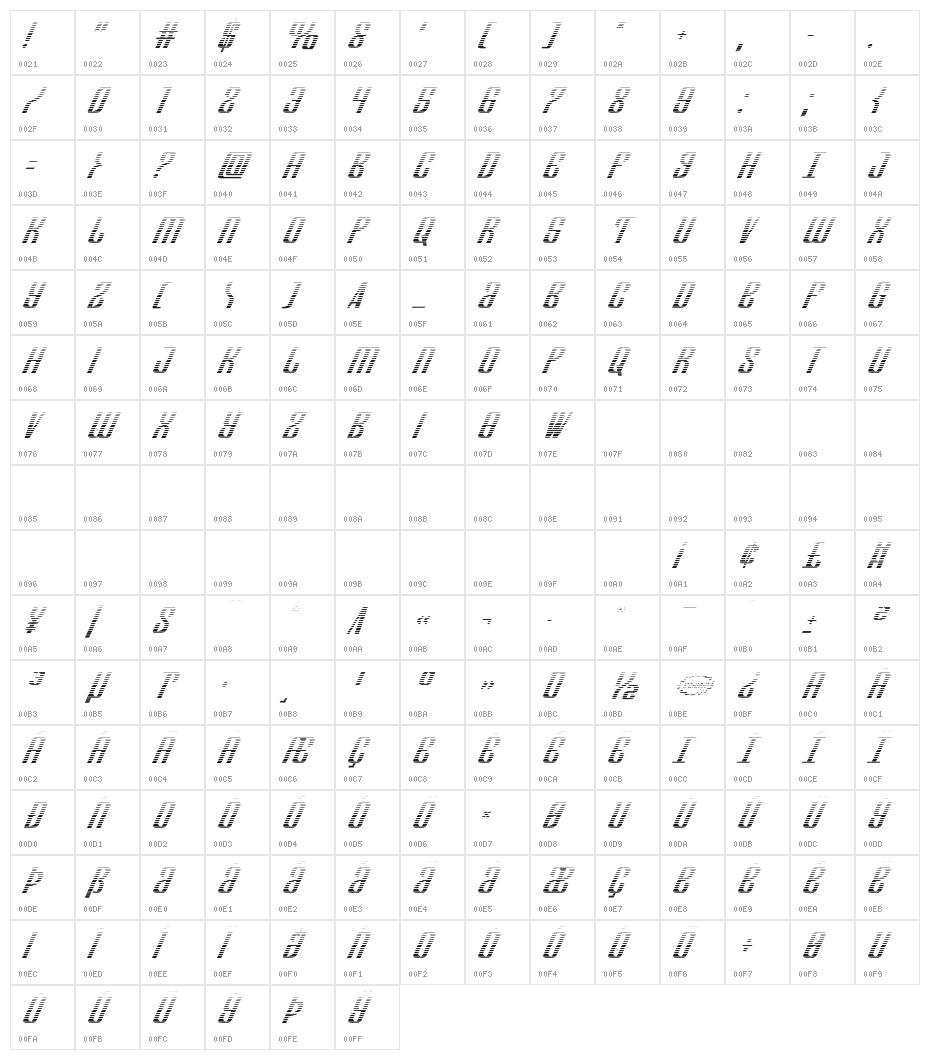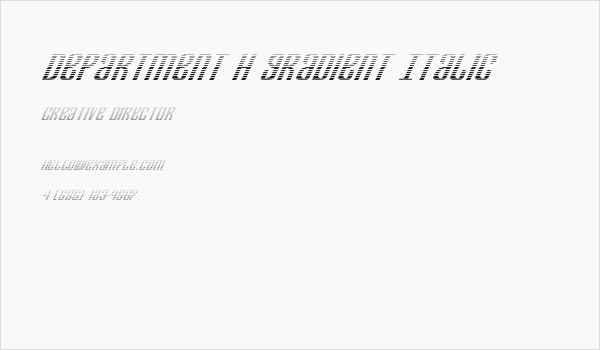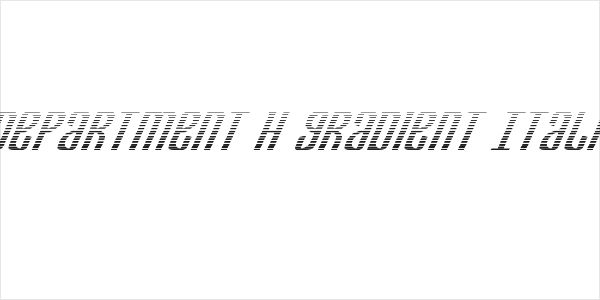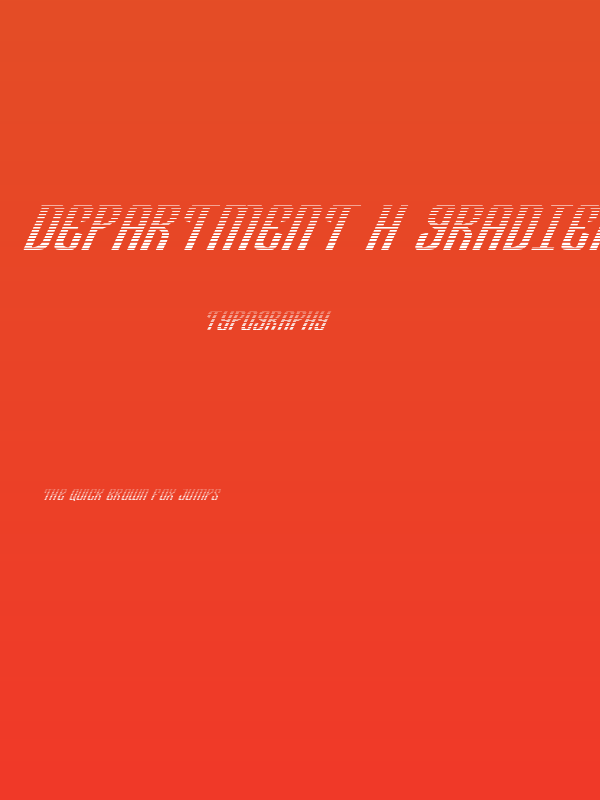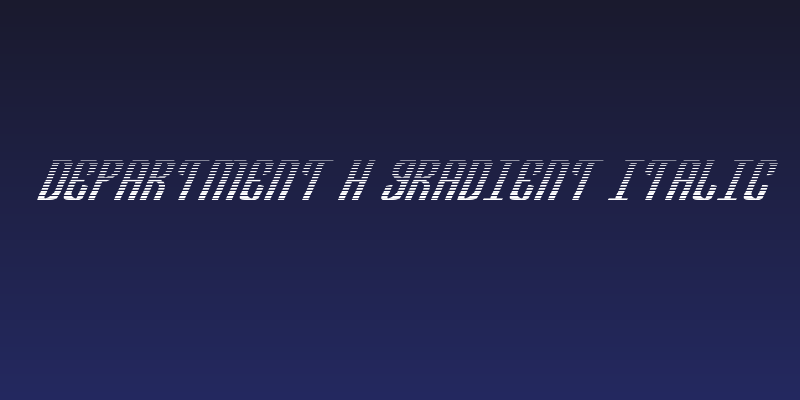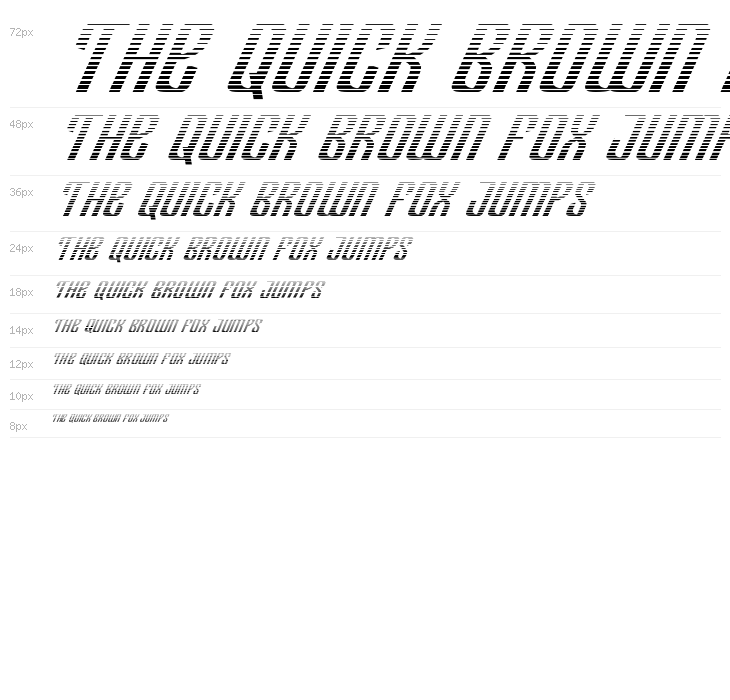
Department H Gradient Italic Font
Department H Gradient Italic Description
This font features a dynamic and modern design with a distinct italic slant, giving it a sense of motion and speed. The characters are composed of horizontal lines that create a gradient effect, adding depth and a futuristic feel. The uppercase and lowercase letters maintain a consistent style, with sharp angles and clean lines. The numerals and special characters follow the same aesthetic, ensuring uniformity across all glyphs. This font's unique style makes it stand out, ideal for projects that require a bold and contemporary look.